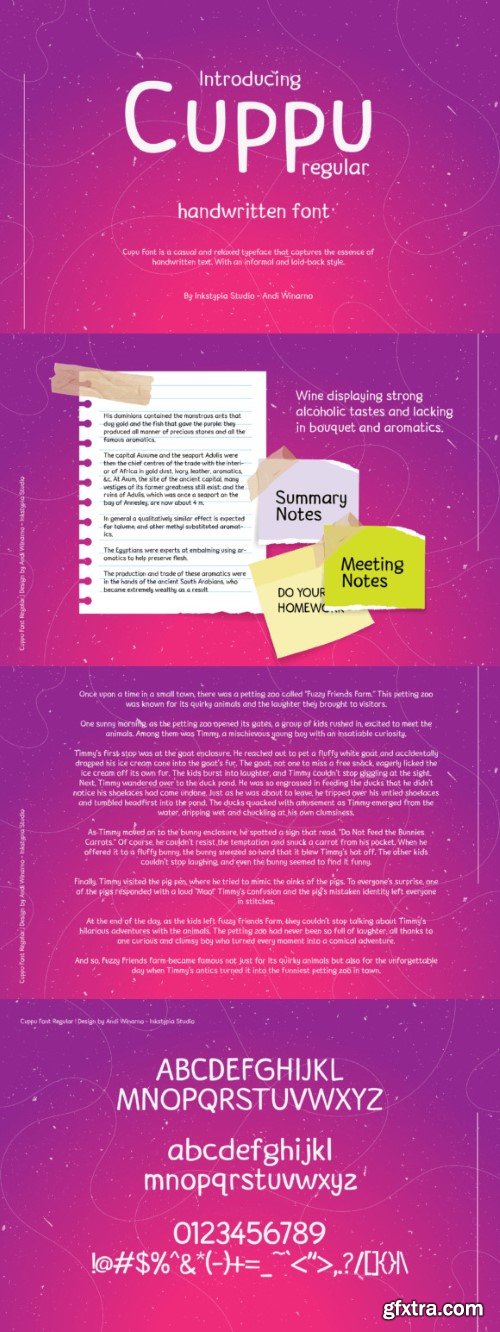
库普乌 Font
Cupu Font is a casual and relaxed typeface that captures the essence of handwritten text. With an informal and laid-back style, it exudes a sense of ease and informality.
The characters of Cupu Font feature fluid and organic shapes, resembling the free-flowing nature of handwriting. This font is an excellent choice for projects that aim to convey a friendly and effortless vibe, making it suitable for personal notes, casual invitations, and relaxed branding materials.
Cupu Font brings a touch of informality and comfort to your designs, making it an ideal choice for those seeking a laid-back and handwritten aesthetic.
The characters of Cupu Font feature fluid and organic shapes, resembling the free-flowing nature of handwriting. This font is an excellent choice for projects that aim to convey a friendly and effortless vibe, making it suitable for personal notes, casual invitations, and relaxed branding materials.
Cupu Font brings a touch of informality and comfort to your designs, making it an ideal choice for those seeking a laid-back and handwritten aesthetic.